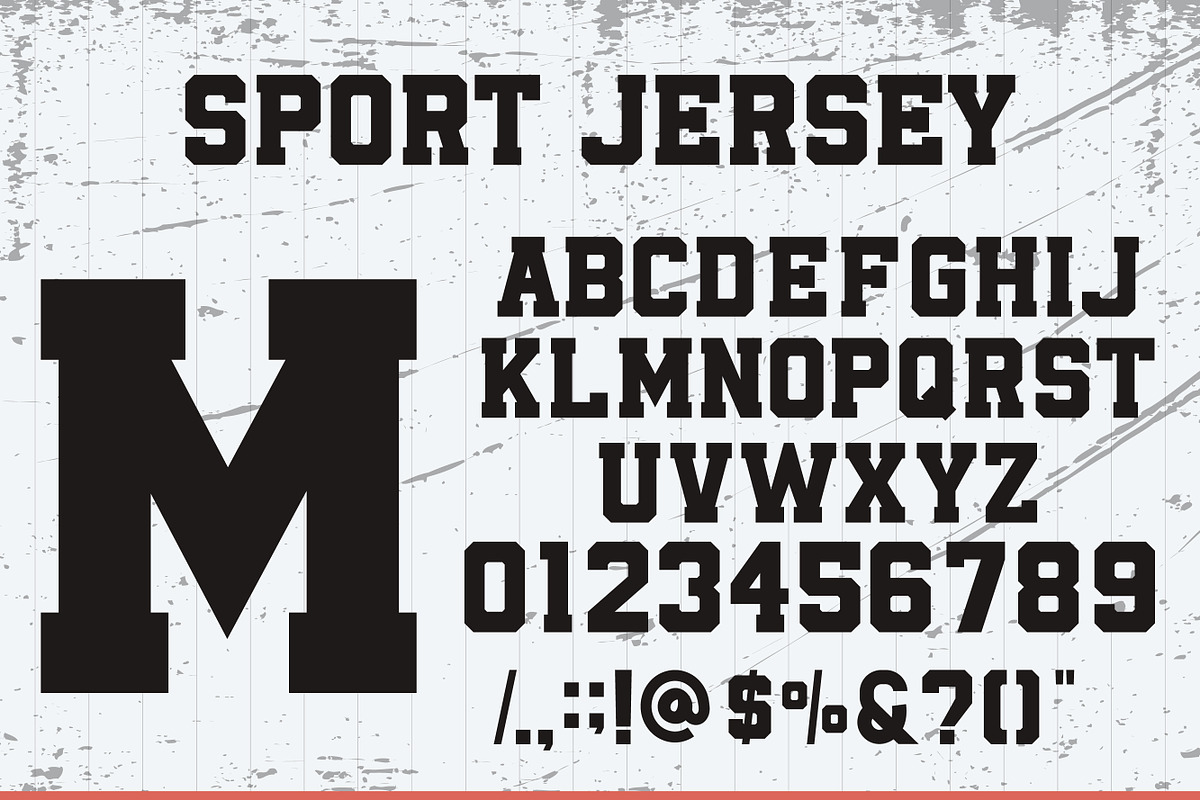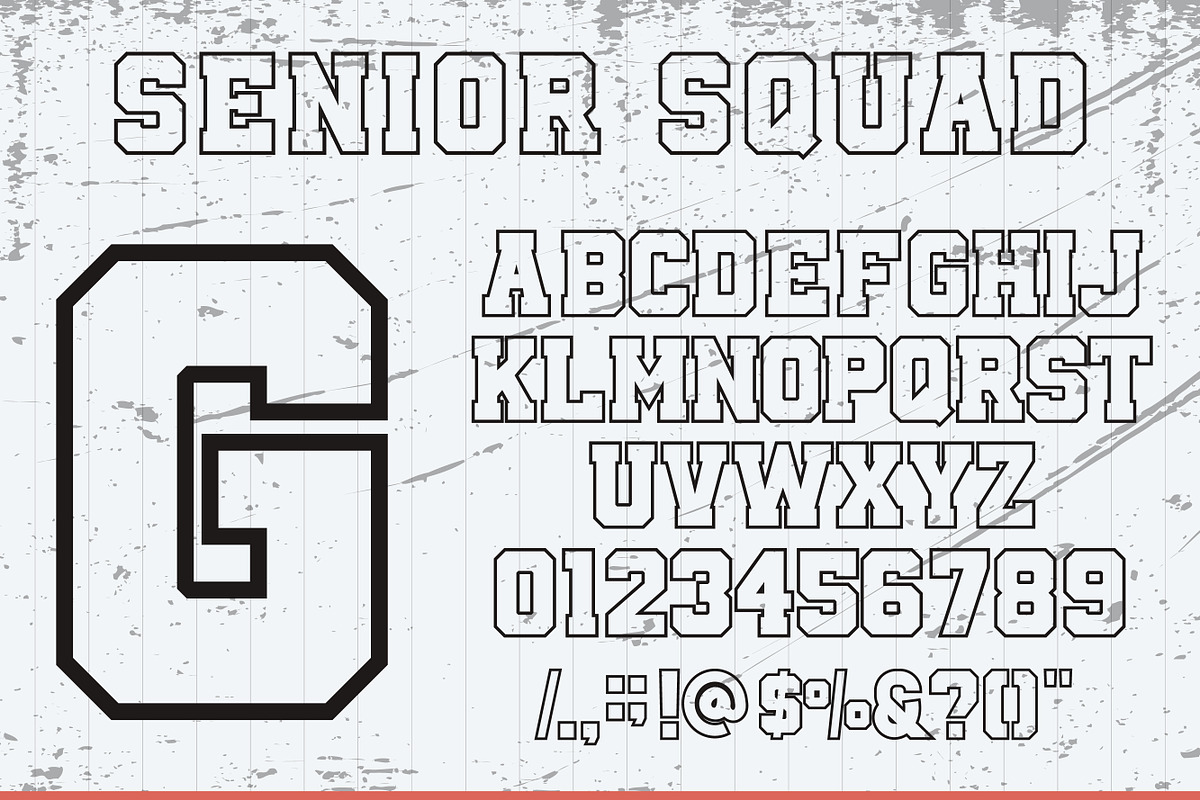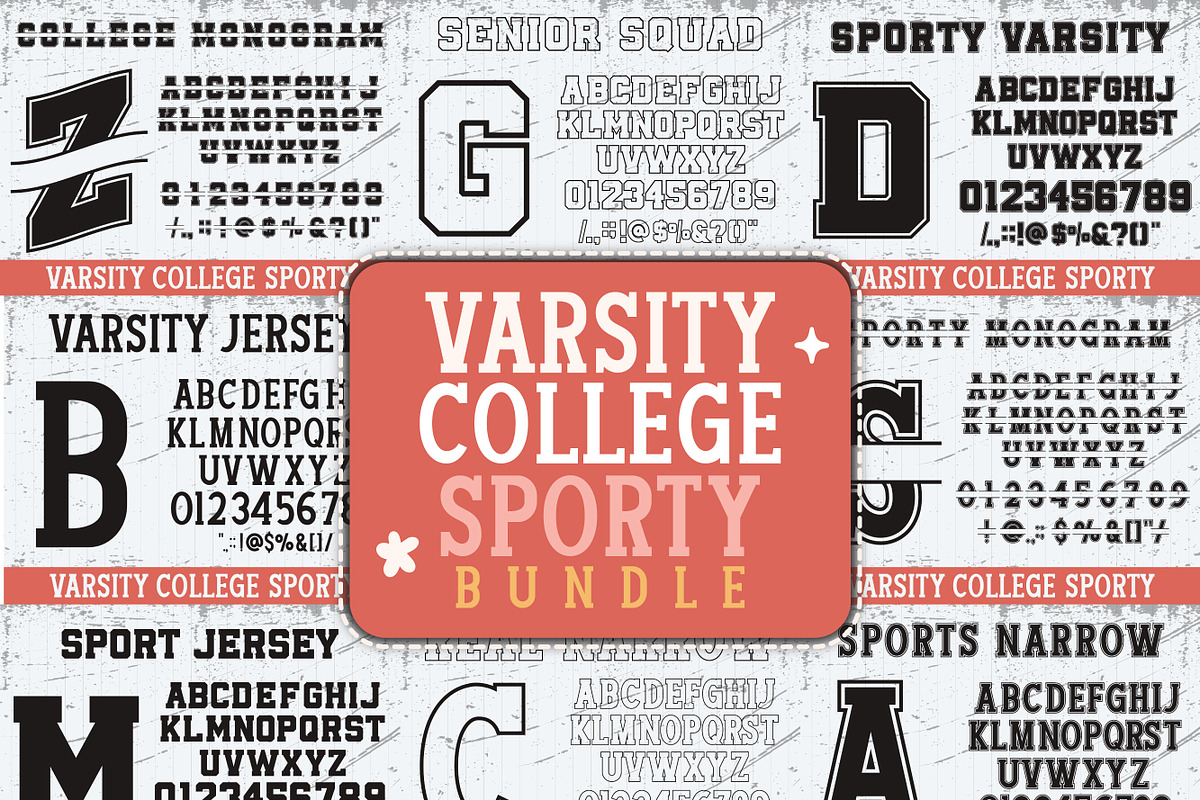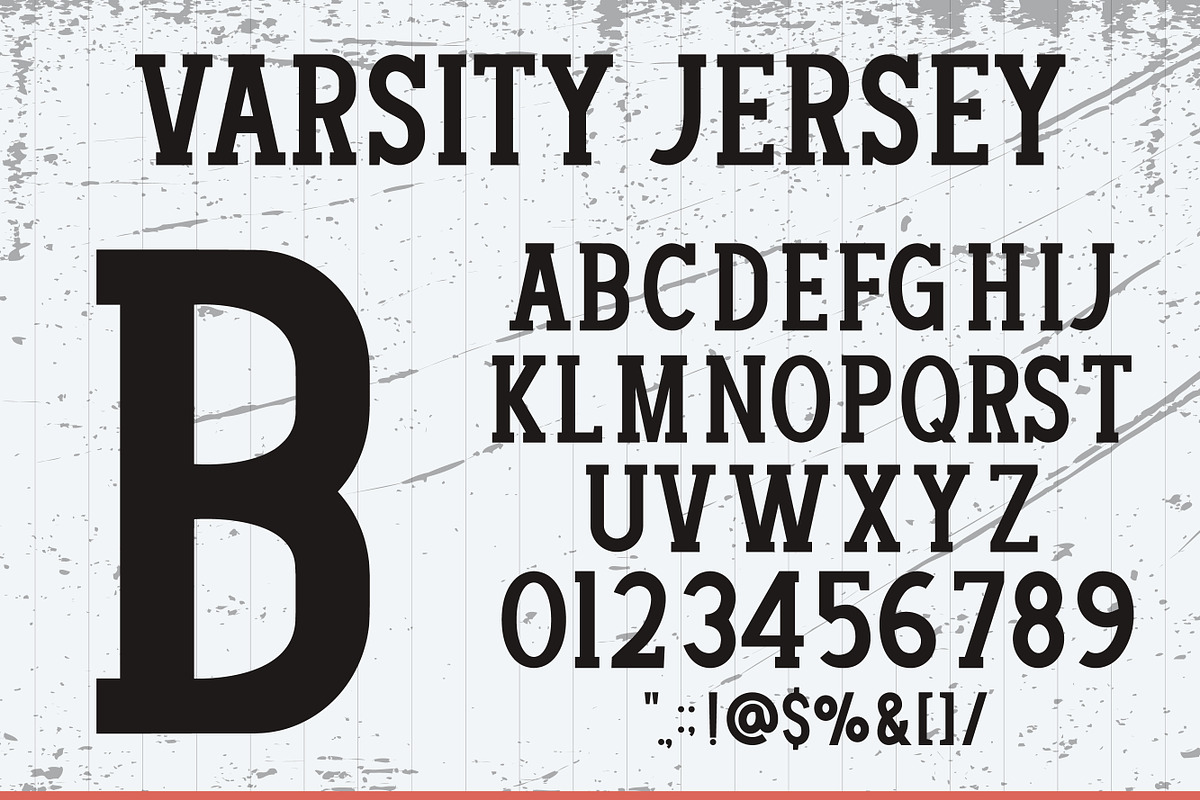
Varsity college sporty
Varsity college sporty bundle is a bold, energetic sport font. It’s a modern take on classic varsity lettering with this Varsity font! Perfect for sports enthusiasts and college fans, Create personalized team gear, spirit wear, or home decor with ease using this versatile typeface. Add it confidently to your projects, and you will love the results. It’s great for making things look display and important!